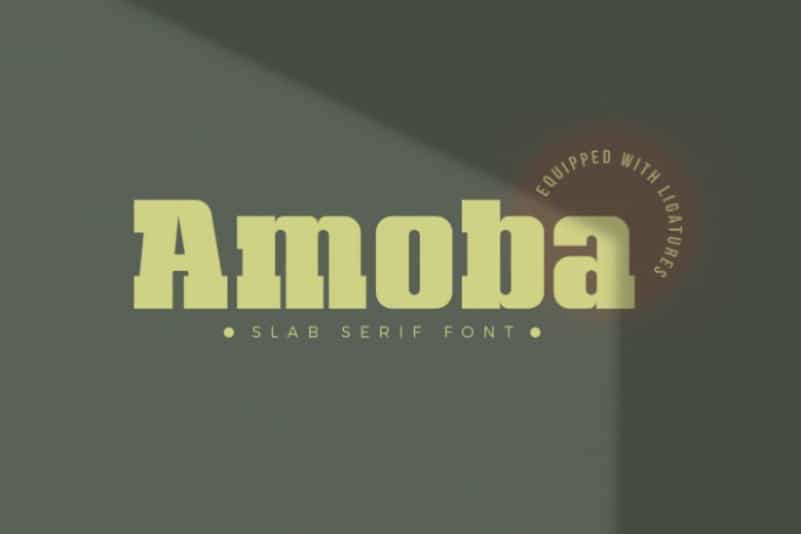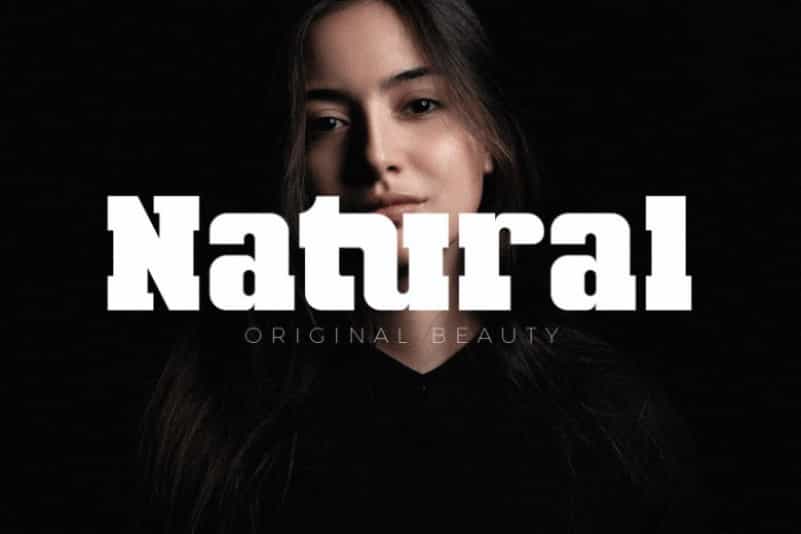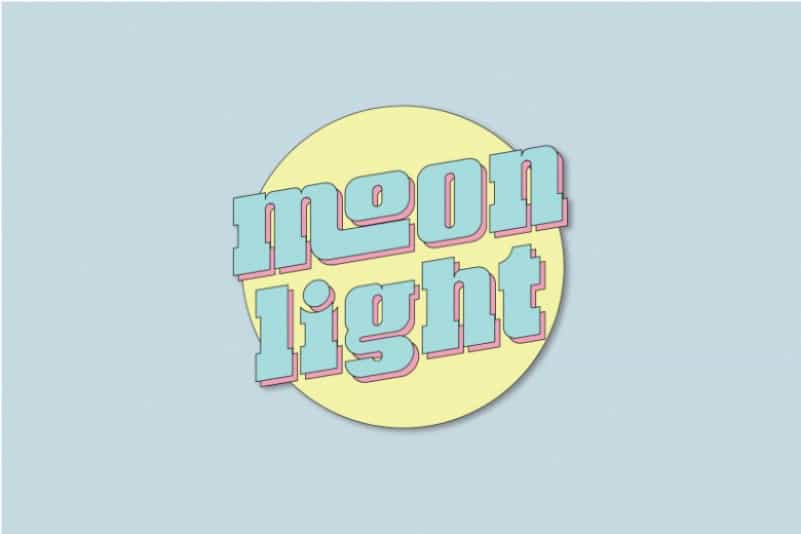
Amoba is a super-sized slab-serif font type. This font has supported supporting languages: Latin Western Europe and also has uppercase, lowercase, and ligature thus it is a design without limits.